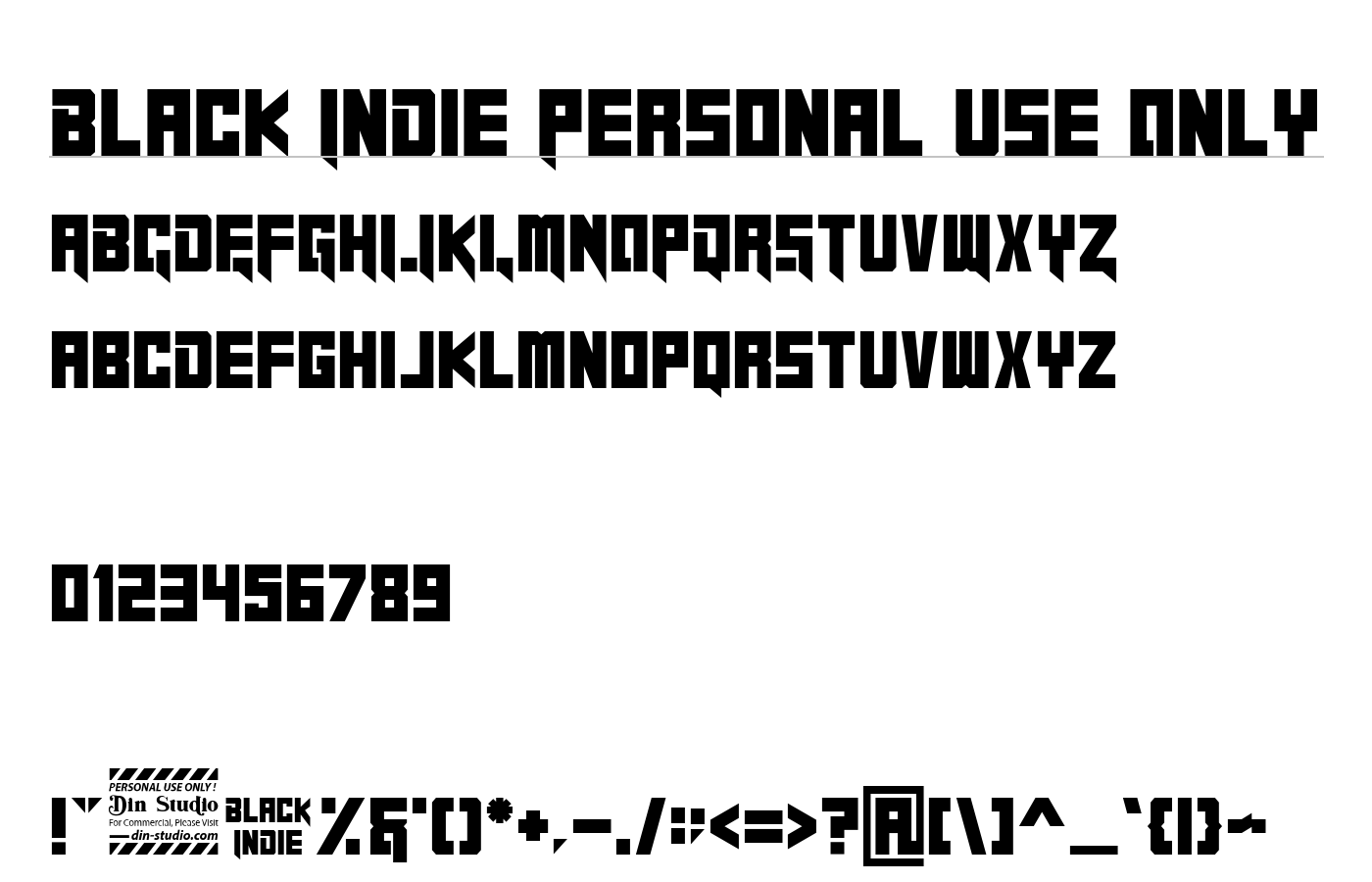
Black Indie Personal Use Only is a bold and condensed sans serif font with a futuristic, geometric style characterized by sharp, angular edges and distinctive cut-out details at the base of several letters. Its strong, blocky shapes make it ideal for attention-grabbing headlines, logos, or branding projects that aim for a modern, edgy vibe. This font works best in display settings where its unique personality can stand out without compromising legibility.
Black Indie Personal Use Only Font
About Black Indie Personal Use Only Font